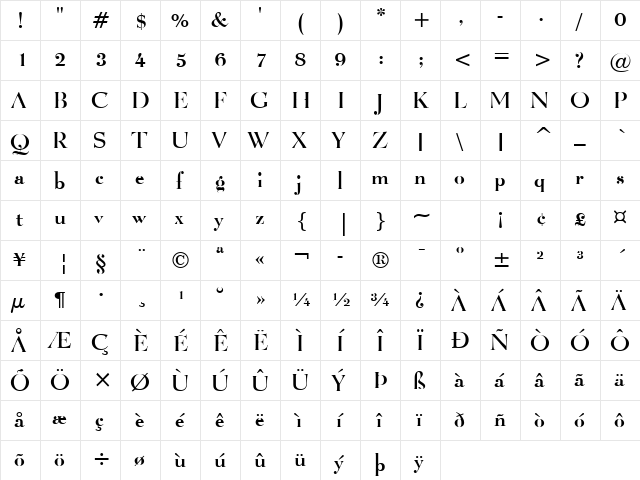
Luciano Normal
Design Context for Luciano Typeface
Luciano offers clean, dependable letterforms without strong stylistic allegiance, making it a practical choice for designers who need flexibility.
Pro Tip: Use Luciano in both headline and body roles to test its range before committing to a single application.